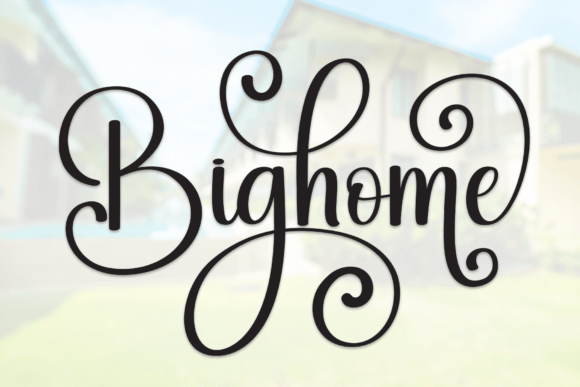
I’ll never forget the time I was working on a high-end wedding invitation project, and my client asked for a font that exuded elegance and sophistication. I scoured the internet, tried countless fonts, but nothing seemed quite right. That was until I stumbled upon Bighome Font. Its modern, charming handwritten style instantly caught my attention, and I knew I had found the perfect fit. In this article, I’ll share my experience with Bighome Font, its features, and how to make the most of it in your designs.
A First Impression: What I Love About Bighome Font
Bighome Font has quickly become one of my go-to fonts for upscale projects. Here’s what I love about it:
• ✨ Elegant and refined: Bighome’s flowing strokes and sophisticated character make it perfect for high-end designs.
• ✅ Versatile: It works beautifully for invitations, personal branding, editorial designs, and more.
• 💫 Unique personality: Bighome’s modern take on traditional handwriting fonts sets it apart from more generic fonts.
The Not-So-Perfect: A Few Quirks
While Bighome Font is exceptional, it’s not without its limitations. Here are a few things to keep in mind:
• 🤔 Limited use for body text: Due to its elegant, cursive nature, Bighome Font might not be the best choice for lengthy body text.
• ⚠️ Requires attention to spacing: To ensure optimal readability, you may need to adjust the spacing between letters and words.
3. Experiment with OpenType features like ligatures and stylistic alternates to add more flair to your text.
Exploring Alternatives: Similar Fonts to Bighome
The Story Behind Bighome Font
Bighome Font was created with the intention of bringing a touch of modern elegance to the world of handwritten fonts. Its designer aimed to craft a font that was not only beautiful but also versatile, suitable for a range of design projects. The result is a font that exudes warmth and sophistication, perfect for designers looking to elevate their work.
What makes Bighome Font unique? Bighome Font’s unique blend of modern elegance and traditional handwritten charm sets it apart.
Does Bighome Font support OpenType features? Yes, Bighome Font supports OpenType features, including ligatures and stylistic alternates.
Is Bighome Font suitable for body text? While beautiful, Bighome Font’s elegant nature makes it more suited for headlines and short text passages.
In conclusion, Bighome Font is a stunning addition to any designer’s font collection. Its elegance, versatility, and unique personality make it perfect for a wide range of projects. By understanding its features and how to use it effectively, you can elevate your designs and create something truly special.